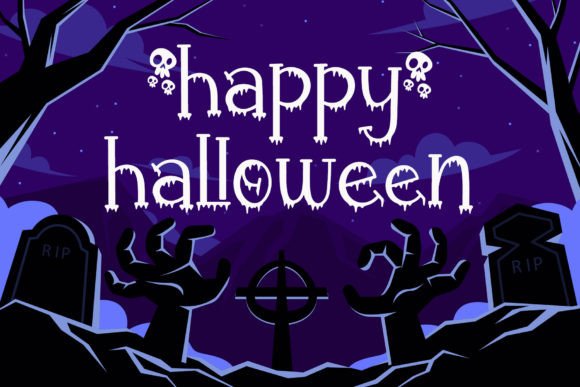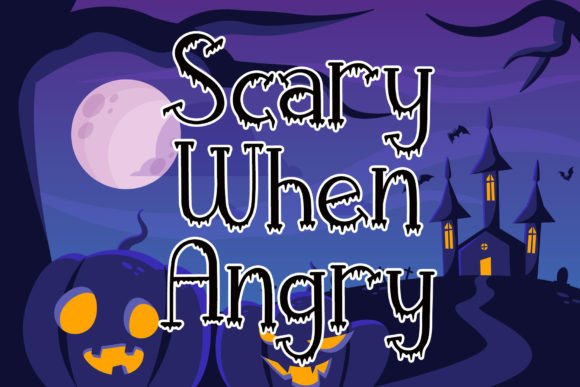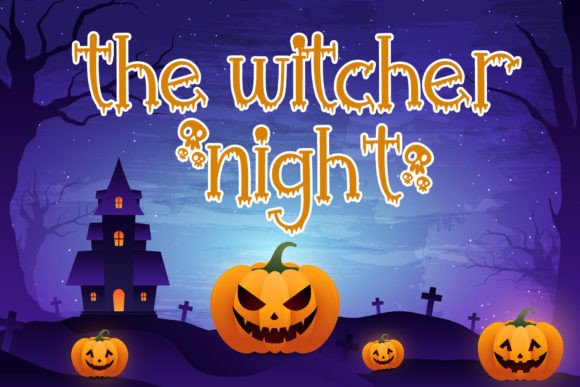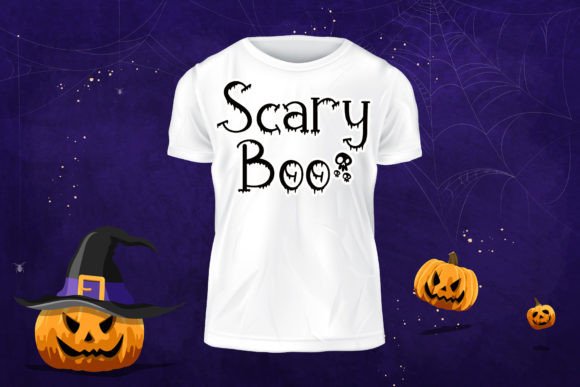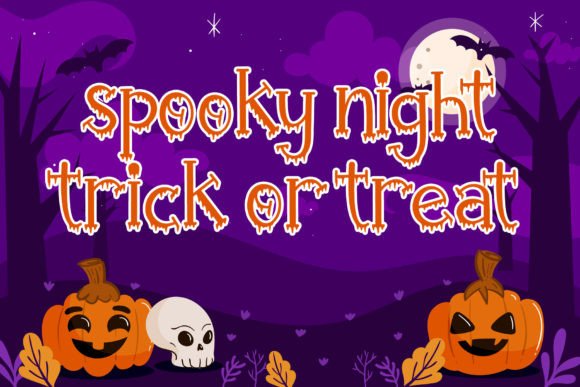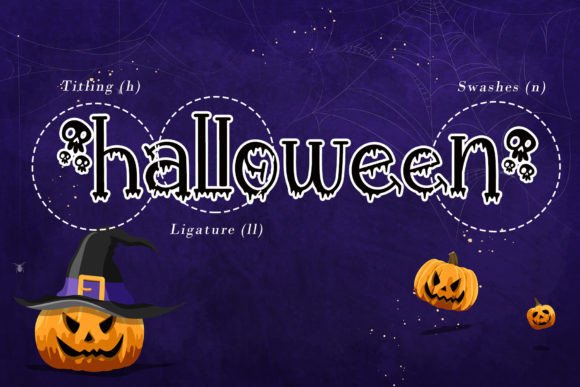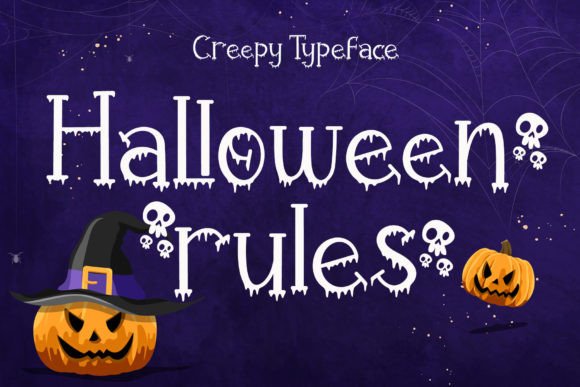
Unleash the Spookiness: A Comprehensive Guide to Halloween Rules Font
As the spookiest time of the year approaches, designers and crafters are on the lookout for the perfect font to add a touch of eeriness to their Halloween-themed projects. Look no further than the Halloween Rules Font, a cool-lettered and spooky decorative font that’s sure to cast a spell on your creations. In this article, we’ll dive into the world of Halloween Rules Font, exploring its features, benefits, and uses, as well as provide tips and tricks for incorporating it into your designs.
What is Halloween Rules Font?
Halloween Rules Font is a unique and eye-catching font designed specifically for Halloween-related projects. Its spooky and decorative style makes it perfect for adding a touch of eeriness to your designs, from invitations and party decorations to social media graphics and craft projects. The font’s cool-lettered style is sure to send shivers down the spine, making it a must-have for any designer or crafter looking to create spooky and memorable content.
Key Features of Halloween Rules Font
So, what makes Halloween Rules Font so special? Here are just a few of its key features:
- PUA Encoded: Halloween Rules Font is PUA (Private Use Area) encoded, which means that you can access all of the glyphs and swashes with ease. This makes it simple to use the font in your designs, even if you’re not a seasoned typography expert.
- Cool-Lettered Style: The font’s cool-lettered style is perfect for adding a touch of spookiness to your designs. The letters are carefully crafted to create a sense of eeriness and foreboding, making it perfect for Halloween-themed projects.
- Decorative Swashes: Halloween Rules Font comes with a range of decorative swashes that can be used to add an extra touch of elegance and sophistication to your designs. These swashes can be used to create beautiful borders, frames, and other design elements.
Benefits of Using Halloween Rules Font
So, why should you choose Halloween Rules Font for your Halloween-themed projects? Here are just a few benefits of using this amazing font:
- Adds a Touch of Spookiness: Halloween Rules Font is designed to add a touch of spookiness to your designs. Its eerie and foreboding style is sure to send shivers down the spine, making it perfect for Halloween-themed projects.
- Increases Creativity: The font’s decorative style and swashes can help to increase your creativity and inspire new design ideas. Whether you’re designing invitations, party decorations, or social media graphics, Halloween Rules Font is sure to spark your imagination.
- Versatile: Halloween Rules Font is surprisingly versatile, making it perfect for a range of design projects. From craft projects to commercial designs, this font can be used in a variety of contexts.
- High-Quality: Halloween Rules Font is a high-quality font that’s designed to produce stunning results. The font is carefully crafted to ensure that it looks great in any design, whether you’re using it for a small craft project or a large commercial design.
Using Halloween Rules Font in Your Designs
So, how can you use Halloween Rules Font in your designs? Here are a few tips and tricks to get you started:
- Pair it with Other Fonts: Halloween Rules Font can be paired with other fonts to create a unique and eye-catching design. Try pairing it with a bold and modern font for a striking contrast.
- Use Decorative Swashes: The font’s decorative swashes can be used to add an extra touch of elegance and sophistication to your designs. Try using them to create beautiful borders, frames, and other design elements.
- Experiment with Colors: Halloween Rules Font looks great in a range of colors, from bold and bright to dark and muted. Experiment with different colors to find the perfect look for your design.
- Use it for a Range of Projects: Halloween Rules Font can be used for a range of projects, from invitations and party decorations to social media graphics and craft projects. Don’t be afraid to get creative and try new things!
| Font Name | Halloween Rules Font |
| Author | AEN Creative Studio |
In conclusion, Halloween Rules Font is a must-have for any designer or crafter looking to create spooky and memorable content. Its cool-lettered style, decorative swashes, and PUA encoding make it perfect for adding a touch of eeriness to your designs. Whether you’re designing invitations, party decorations, or social media graphics, Halloween Rules Font is sure to cast a spell on your creations. So why wait? Download Halloween Rules Font today and unleash the spookiness in your designs!